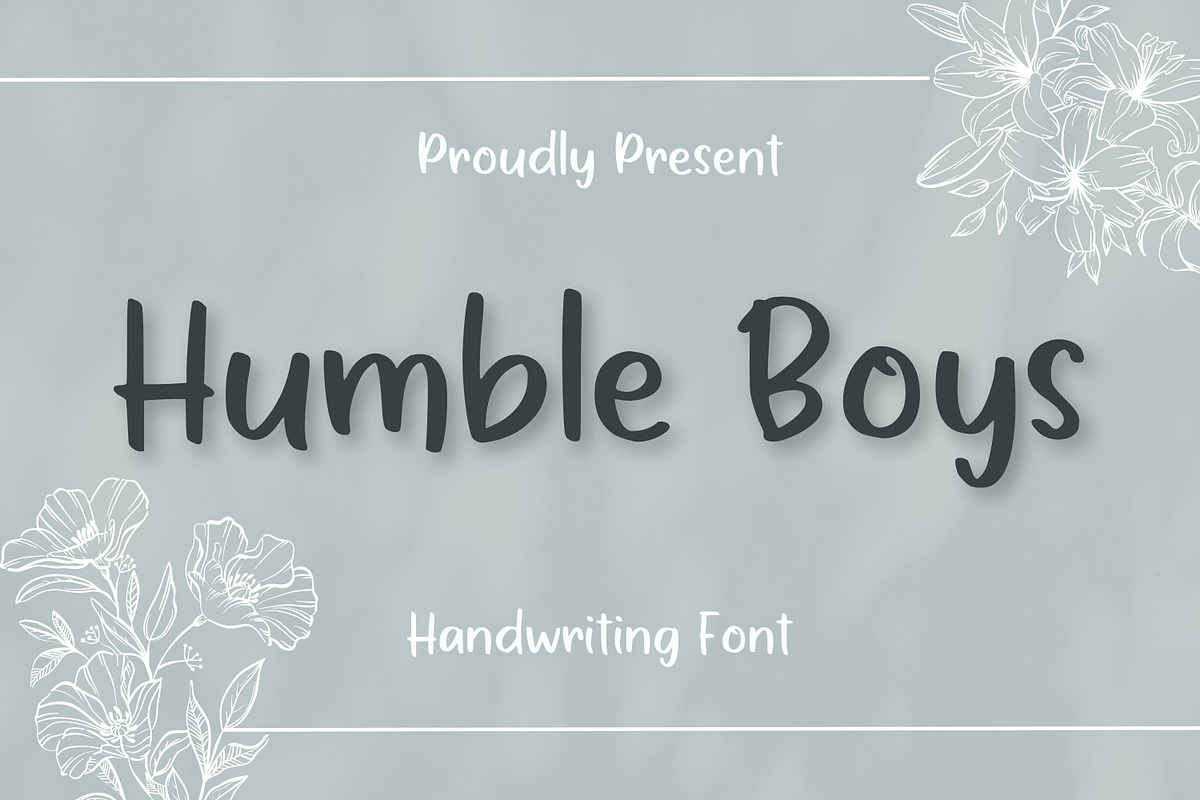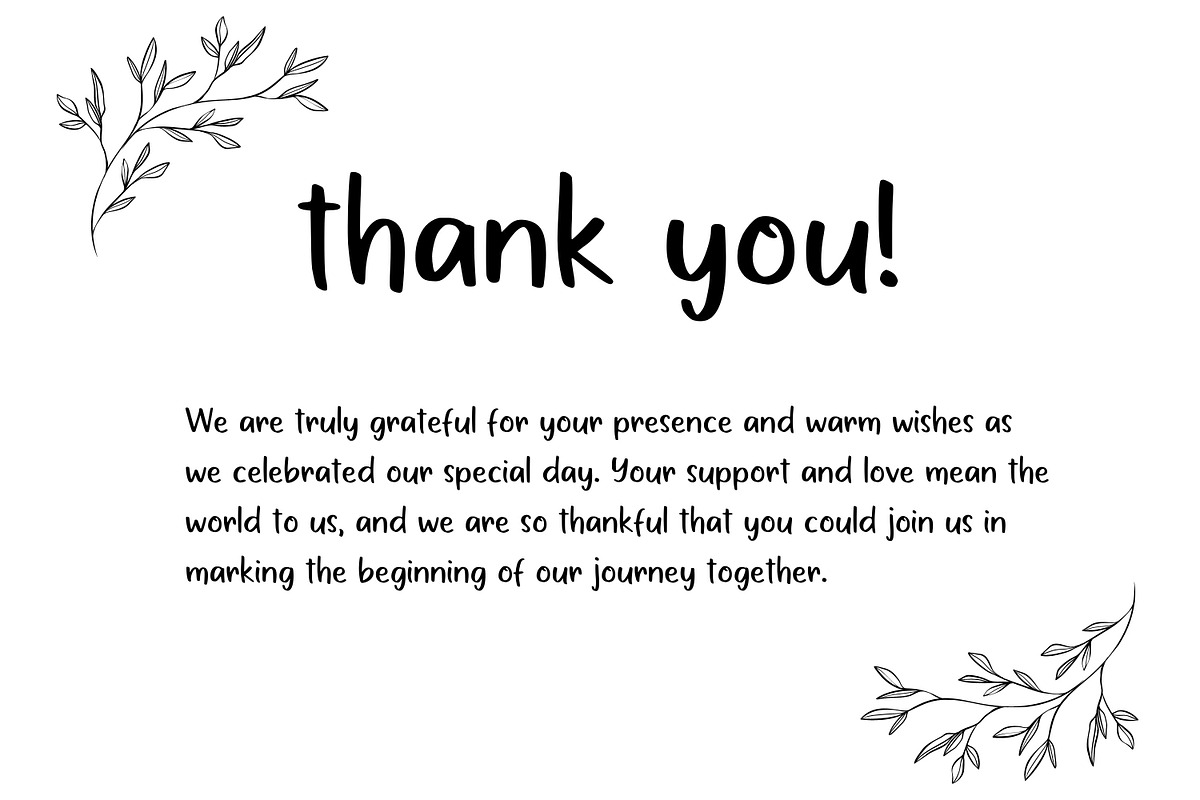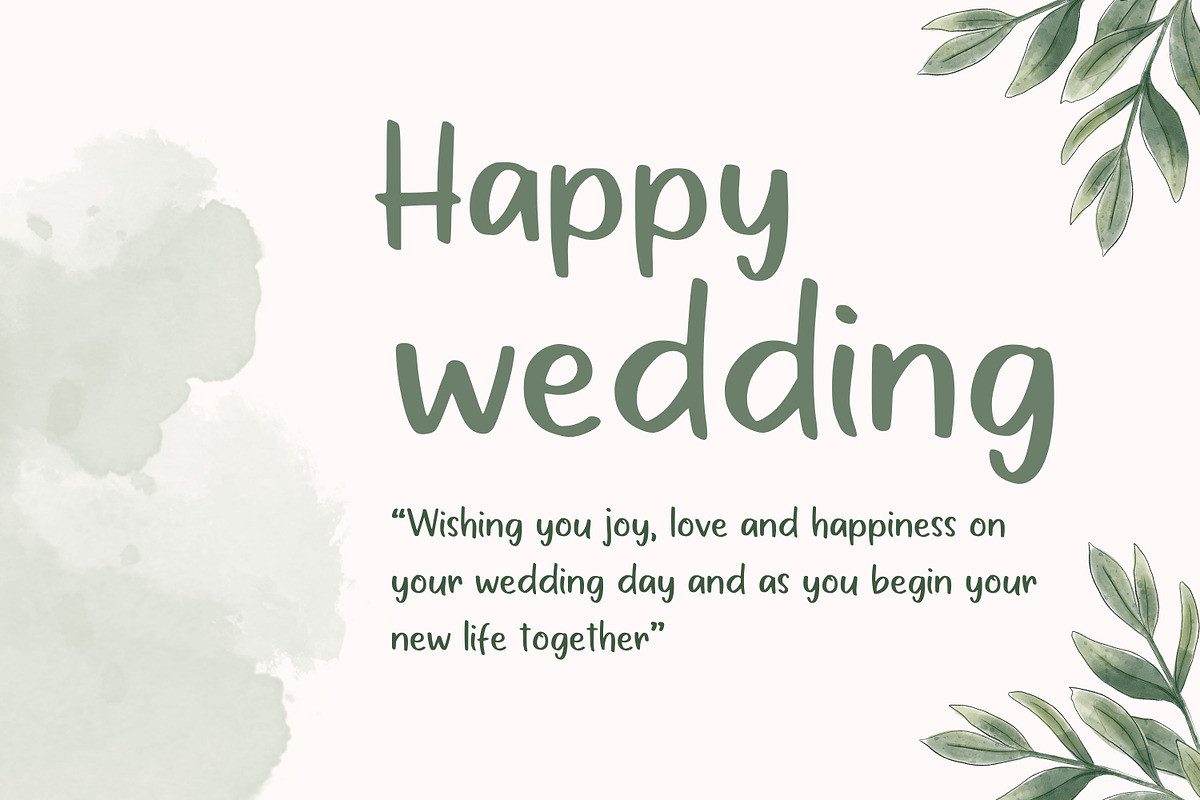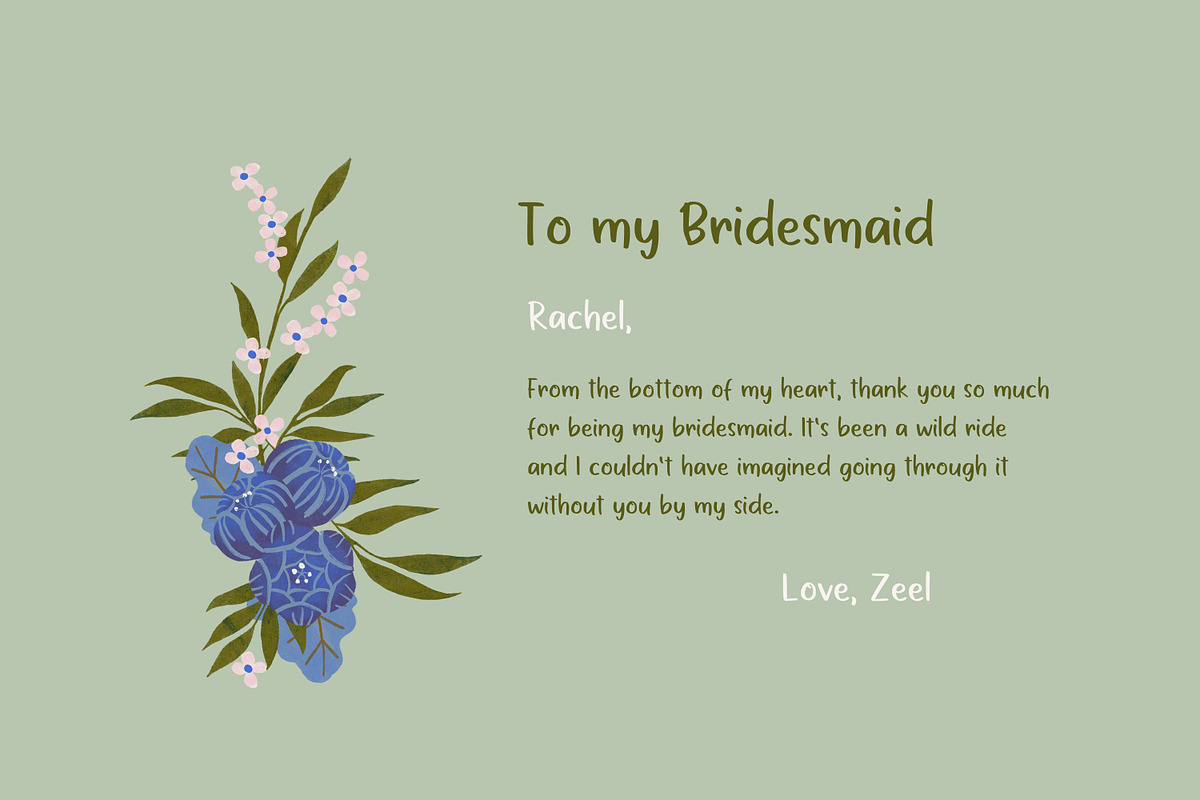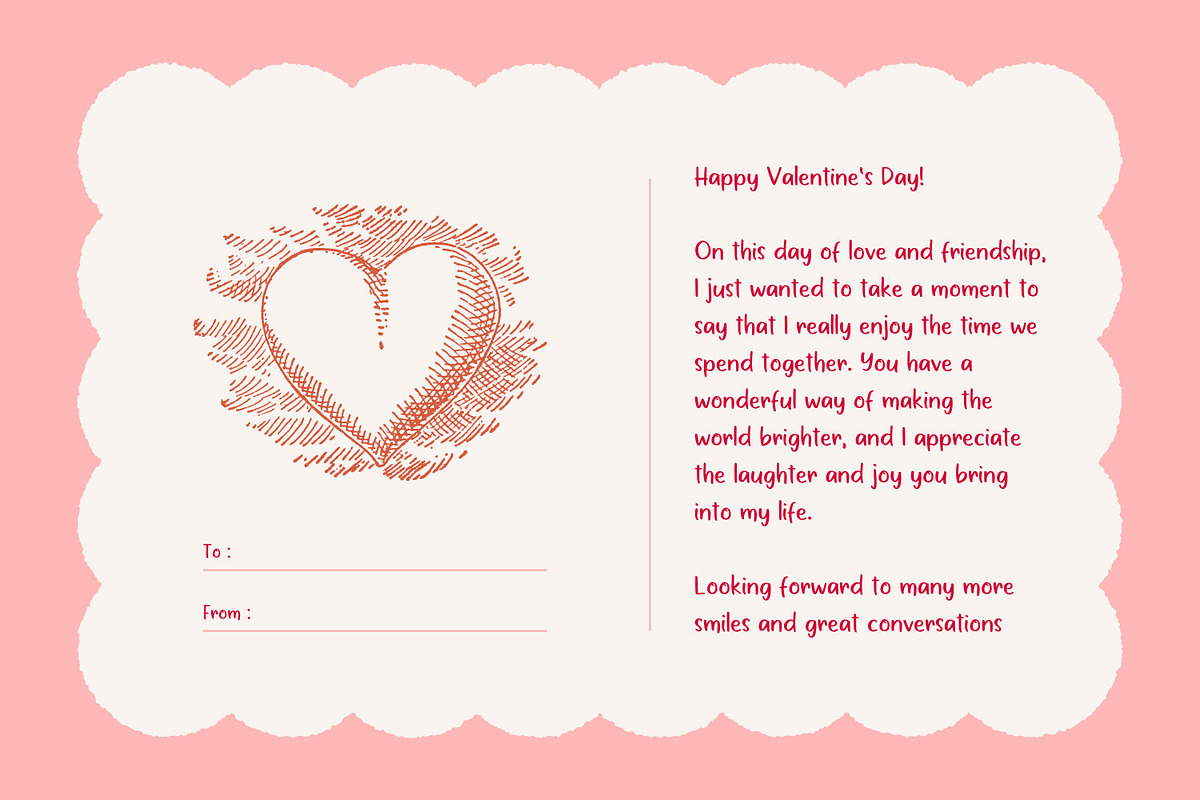
Humble Boys
Meet Humble Boys, a font that effortlessly mingles simplicity, cuteness, and elegance. Designed to resemble personable handwriting, this typeface is the perfect touch for invitations and greeting cards. Humble Boys adds a unique charm to every design, bringing an irresistible harmony of delicacy and sophistication. A brilliant choice to make your professional projects stand out!